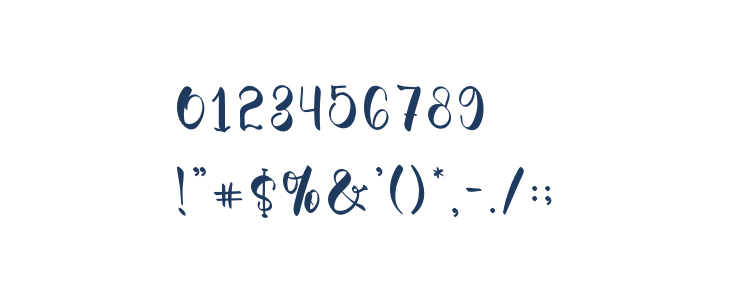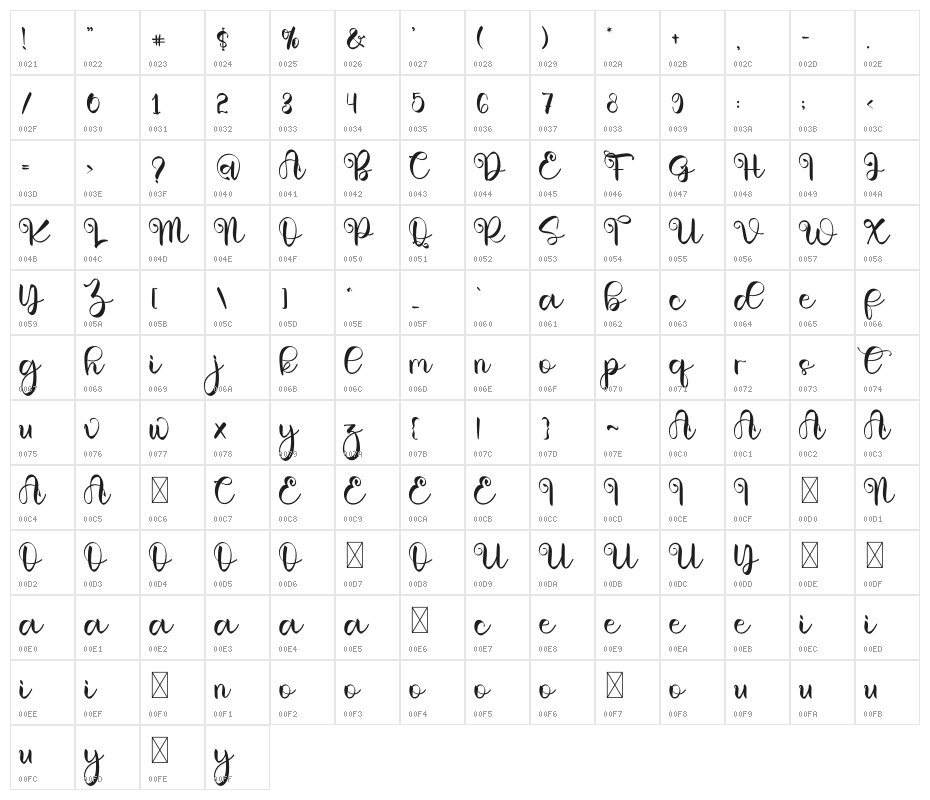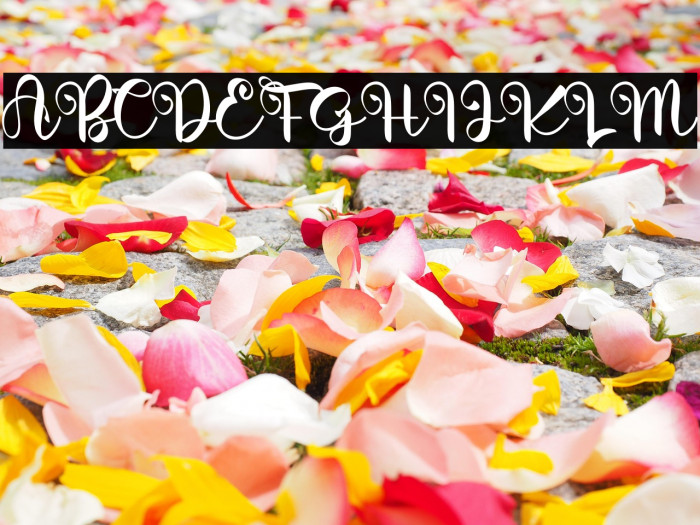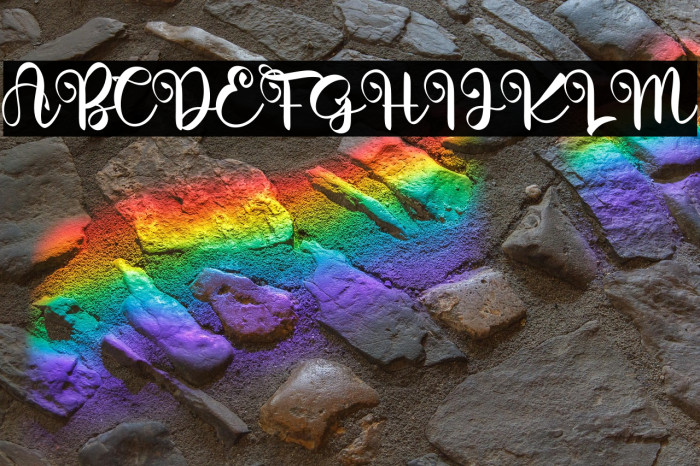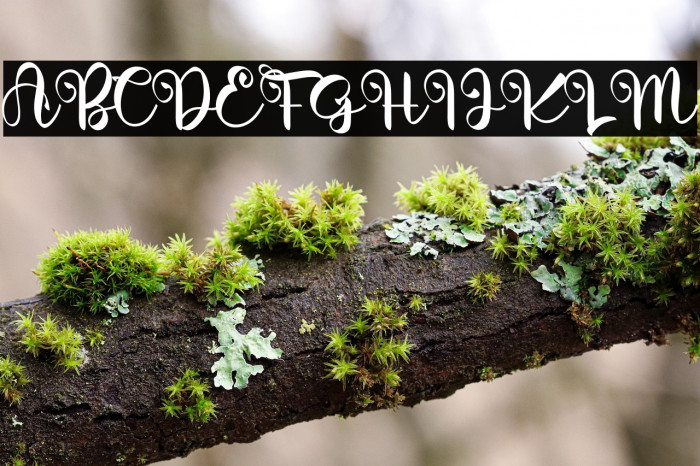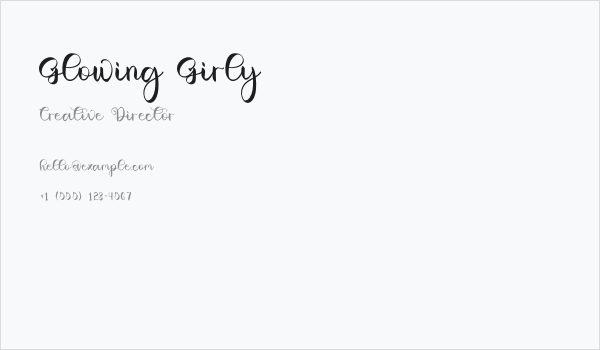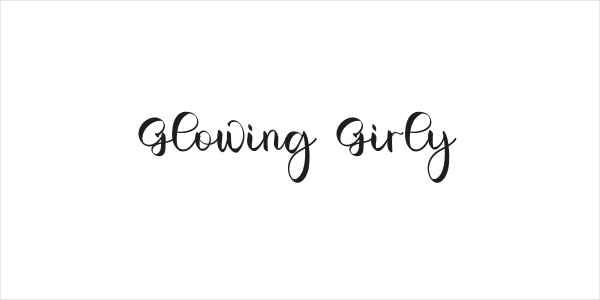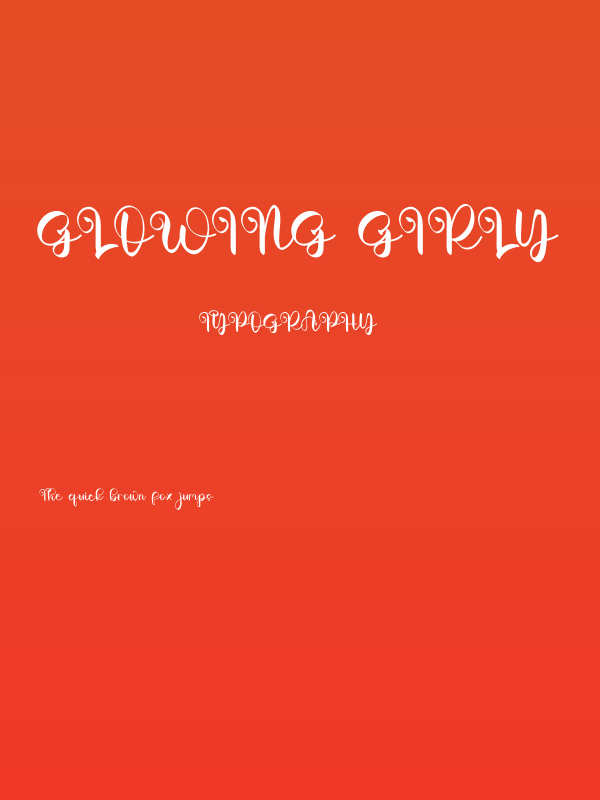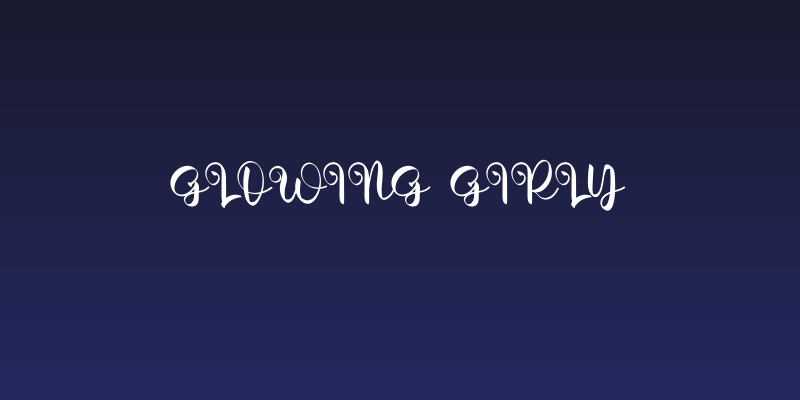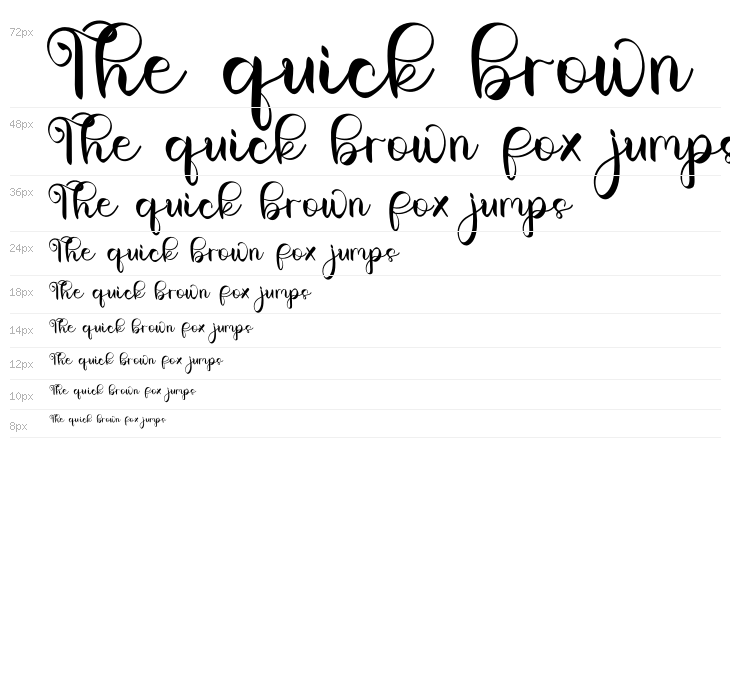
Glowing Girly Font
Glowing Girly Description
This font features a playful and elegant script style with a flowing, cursive design. The characters are interconnected with smooth, rounded strokes and occasional flourishes, giving it a whimsical and feminine touch. The uppercase letters are bold and decorative, while the lowercase letters maintain a consistent flow, enhancing readability. The numbers and special characters are designed to match the overall aesthetic, ensuring a cohesive look across all text. This font is ideal for projects that require a touch of elegance and creativity.
Use CaseLogos, Headlines, Invitations
Proposed ProjectsIdeal for wedding invitations, greeting cards, branding, and social media graphics.